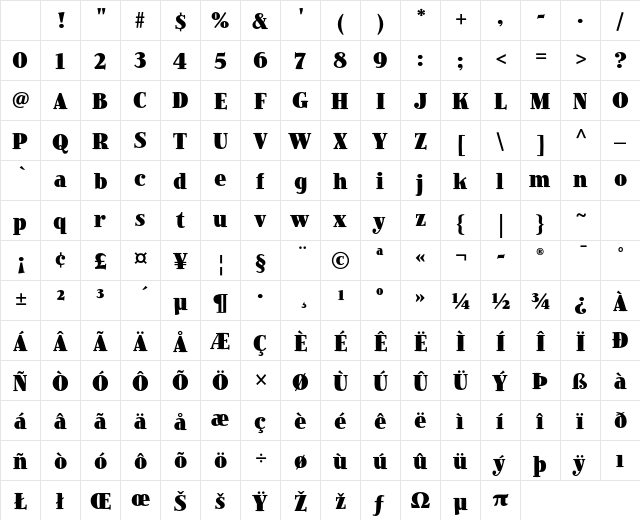
Jimbo Std Black Condensed
Style: Black Condensed
Designer: Jim Parkinson
Design Context for Jimbo Std
Jimbo Std is a composed and adaptable typeface that performs quietly and consistently across a wide range of design contexts. Its narrow stance lets it pack a punch even in space-constrained designs.